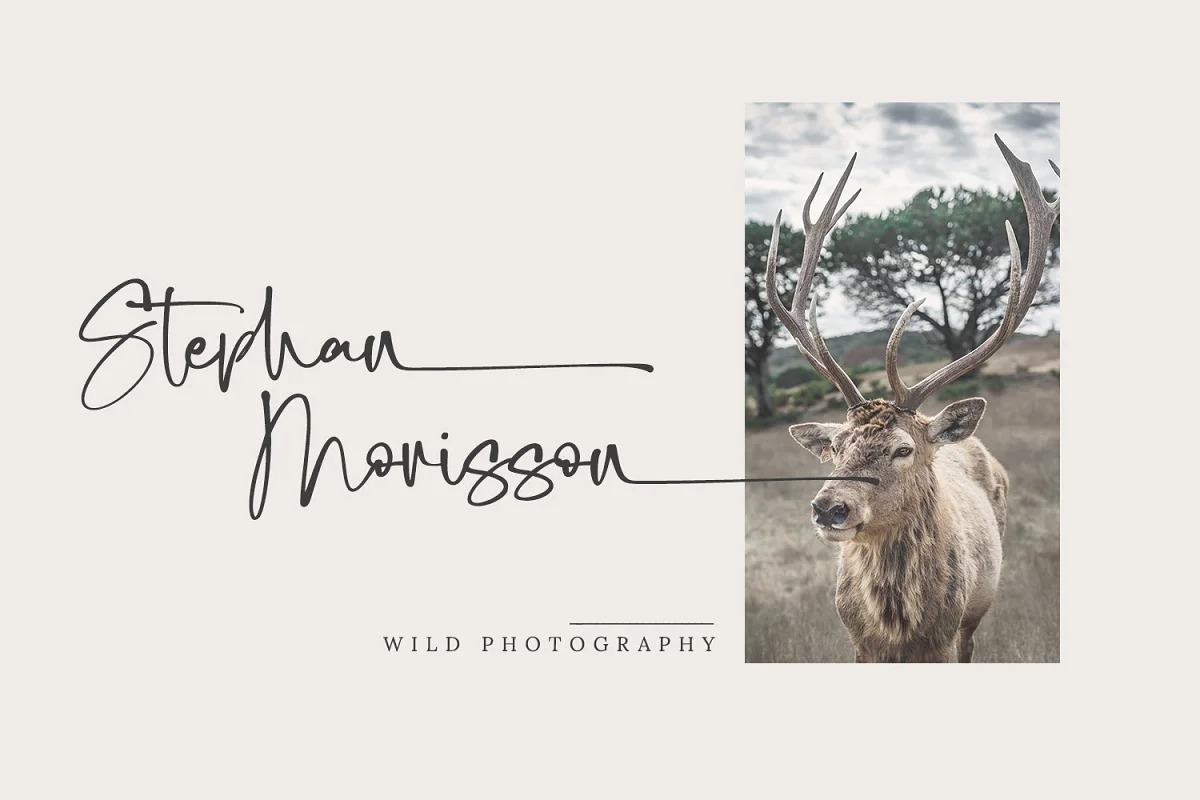
Northeast Oregon Font
Northeast Oregon Handwritten Font
This is an elegant handwritten typeface that is simple and unique looking. It’s designed and shared by Din Studio. It brings charming curves and satisfying patterns This handwritten font is perfect for anything beautiful and neat.. A real head-turner for your presentation, designs, branding, quotes, invitation, website illustrations, and much more.